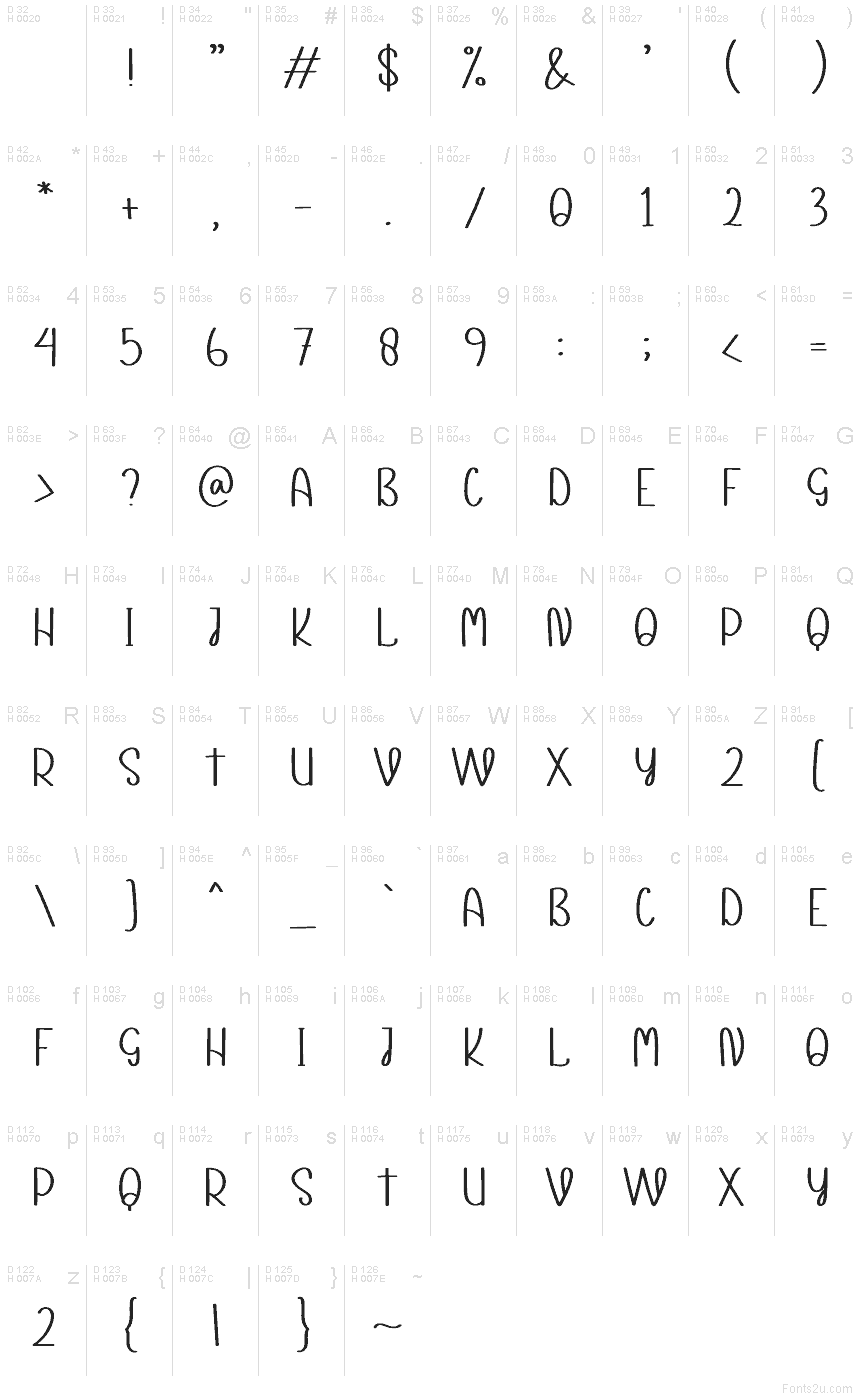
Easter Cute
Easter Cute font by Andi Moz is a charming handwritten style font that embodies a cheerful and whimsical essence. Its modern flair, rounded structure, and condensed width contribute to its friendly aesthetic and informal charm.
This free handwritten font is ideal for invitations, greeting cards, children’s books, logos, packaging designs, posters, social media graphics, blog headers, scrapbooking projects, and educational materials.